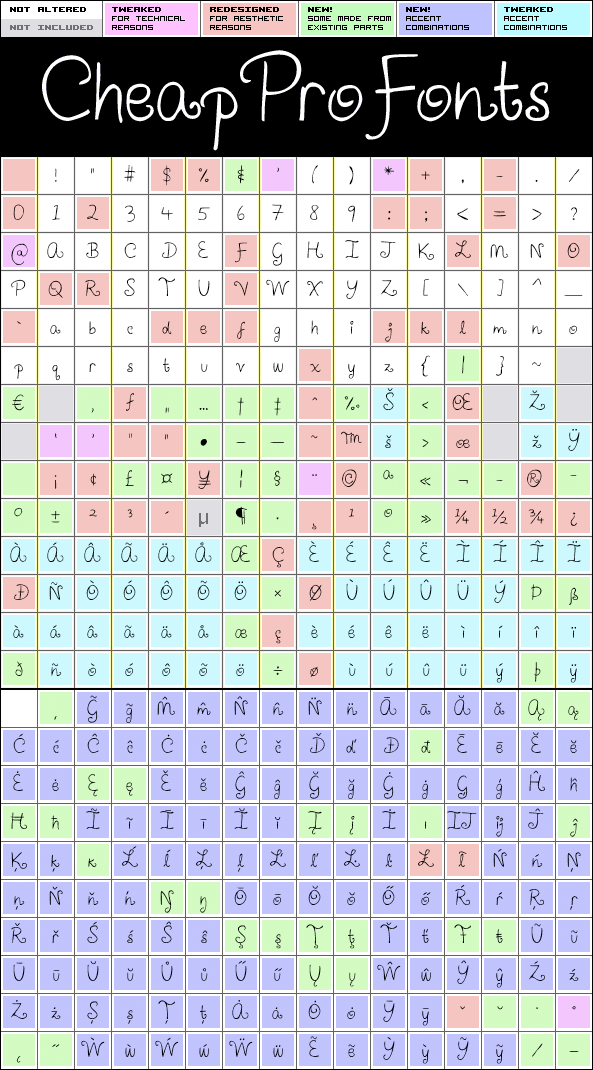
Airplanes In The Night Sky Pro
Airplanes In The Night Sky Pro by Kimberly Geswein
Designer:
Kimberly Geswein
Highlights:
376 glyphs!
(185 in original)
558 class kernpairs
= 9389 kerning pairs
(none in original)
Description:
Couldn't you really use a wish right now? Girly. Swirly. Quirky. And utterly adorable. This Pro version of one of Kimberlys latest cutesy handwriting fonts has received lots of corrections and tweaks to the outlines - to remove autotracing artefacts, stroke width inconsistencies and create a better flow. Finally the character set was completed and expanded. Job done! Back to stargazing... ;)
Airplanes In The Night Sky Pro is a professionally reworked font that contains an extended character set for setting text in 65 languages requiring more than the basic A-Z!